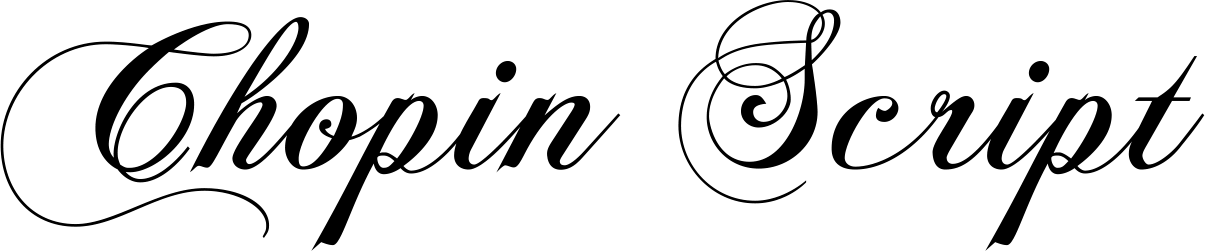
Chopin Script Font
What do you think about this ? Chopin Script is a script font and its handwriting style gives a friendly impression that’s a very good quality if you want a font for magazine headlines, tattoos, wedding invitations, etc.
This doesn’t have all the characters. Its readability isn’t as good as serifs and san-serifs but it is quite well.